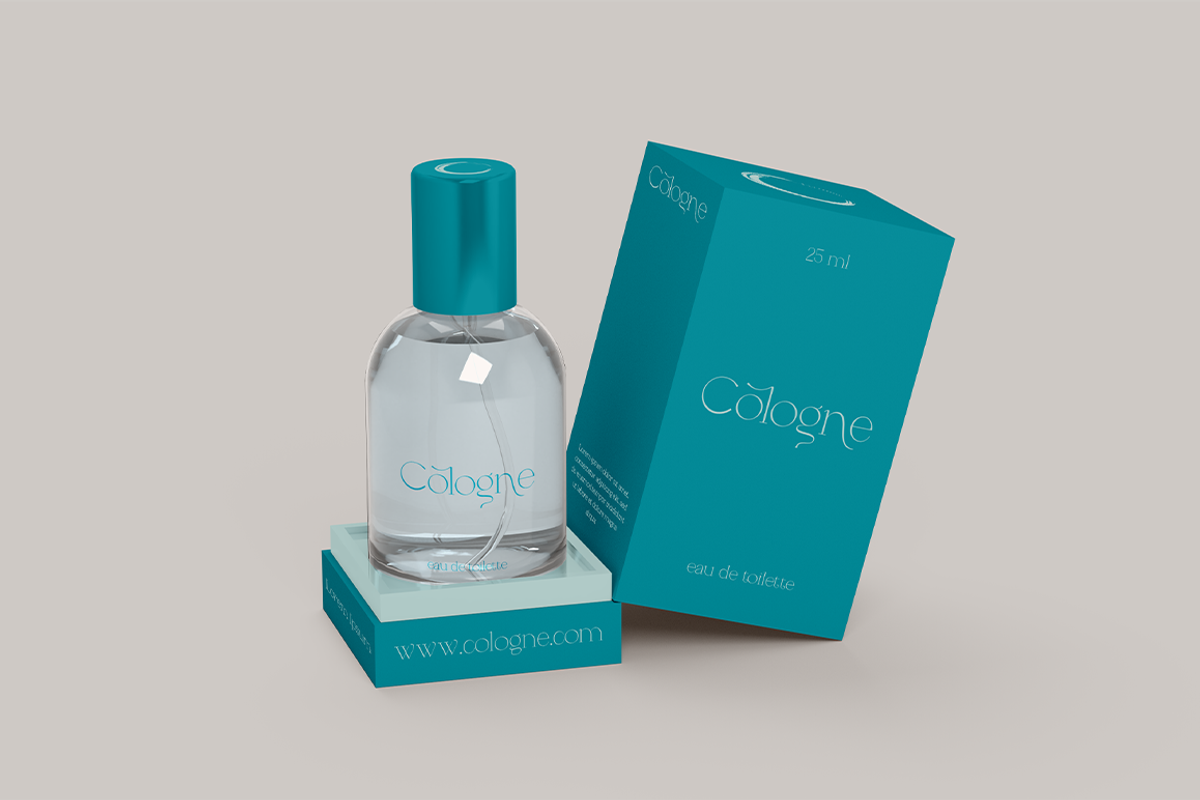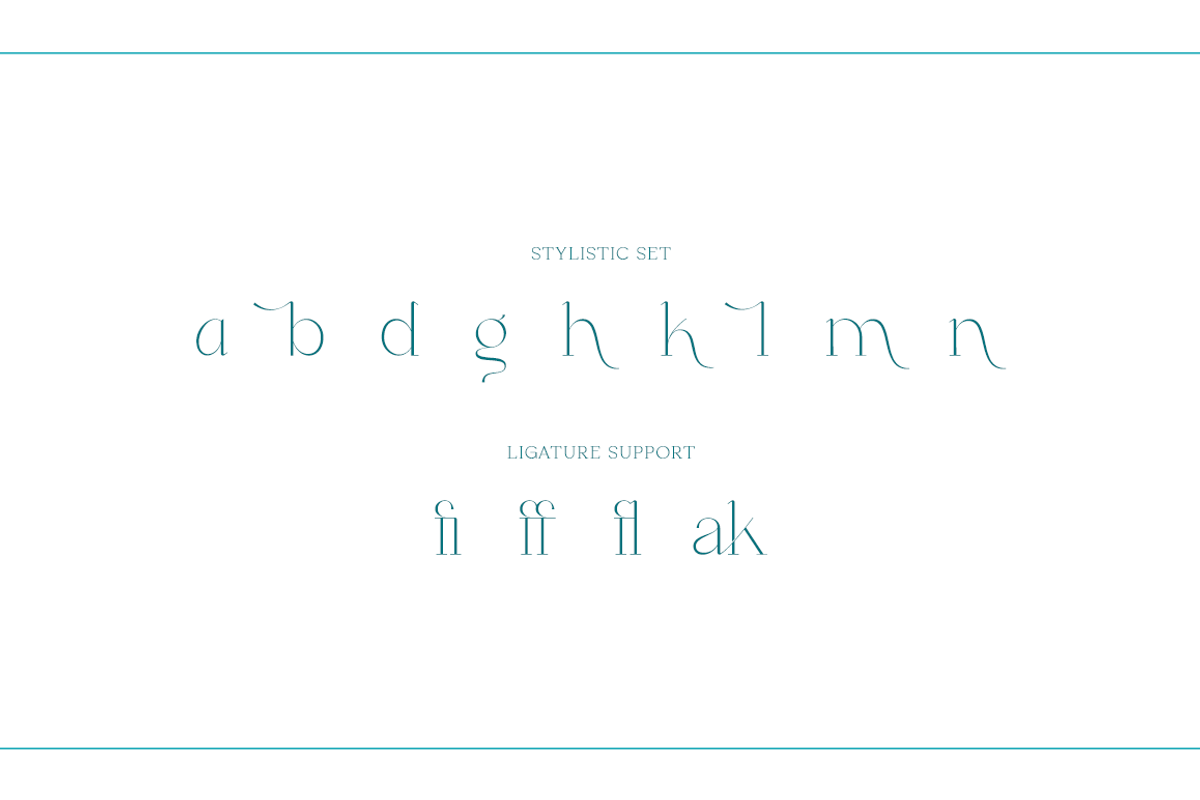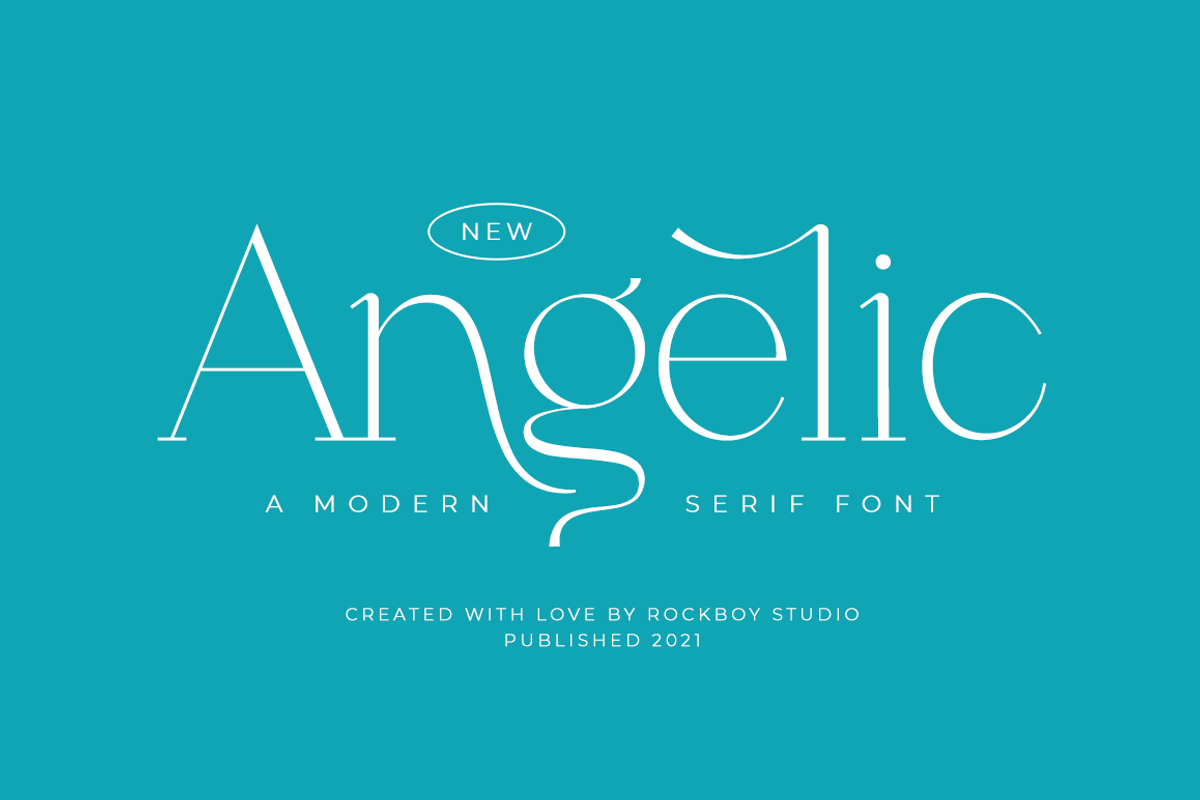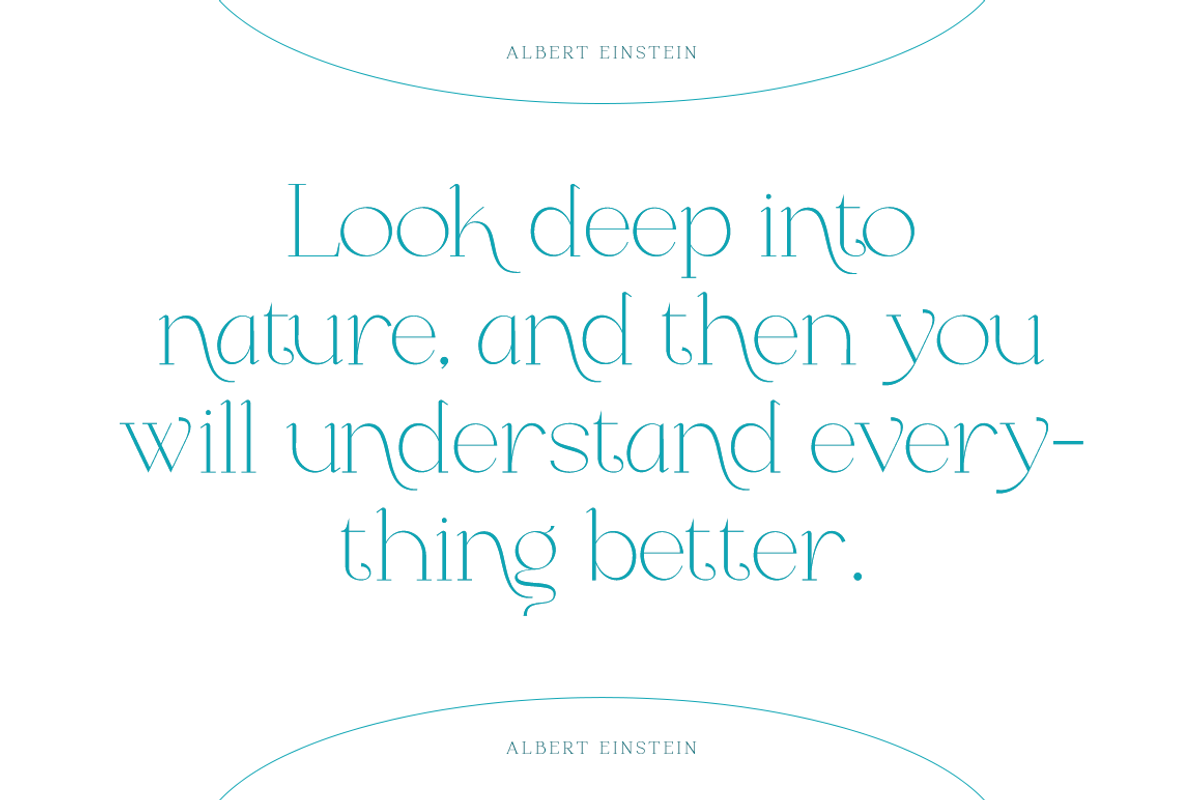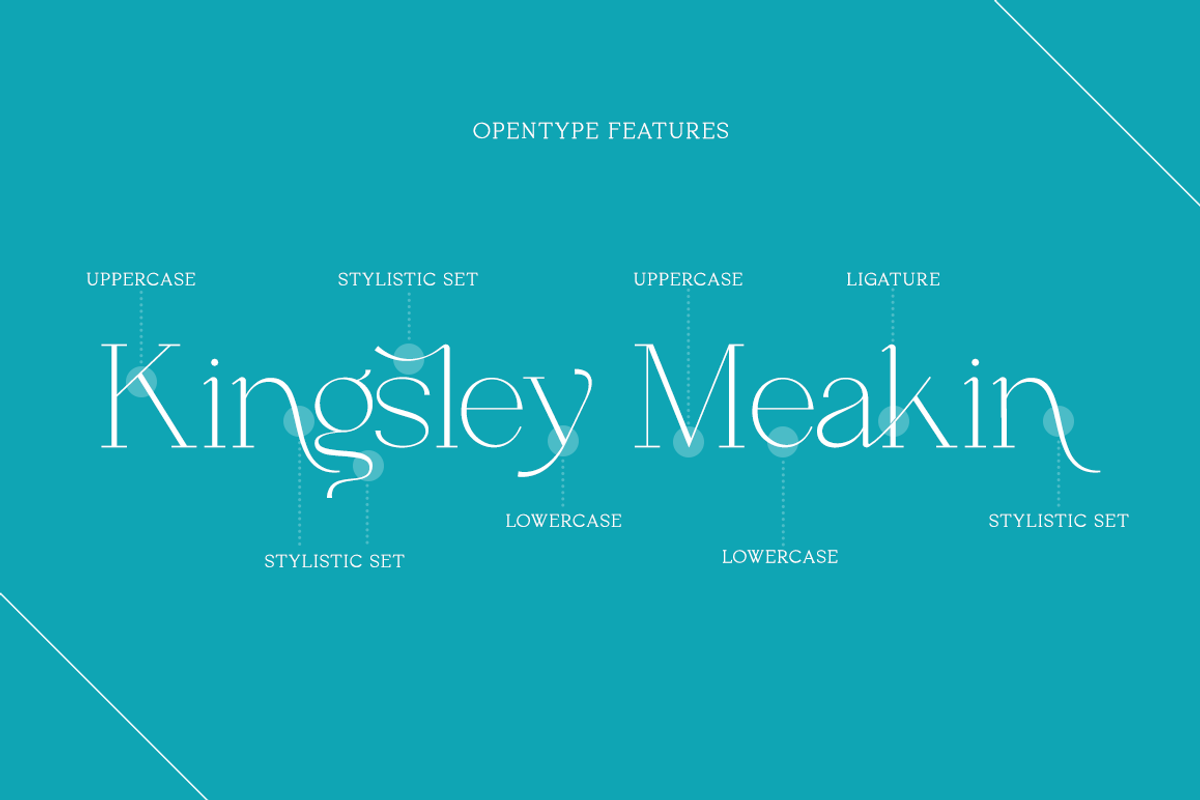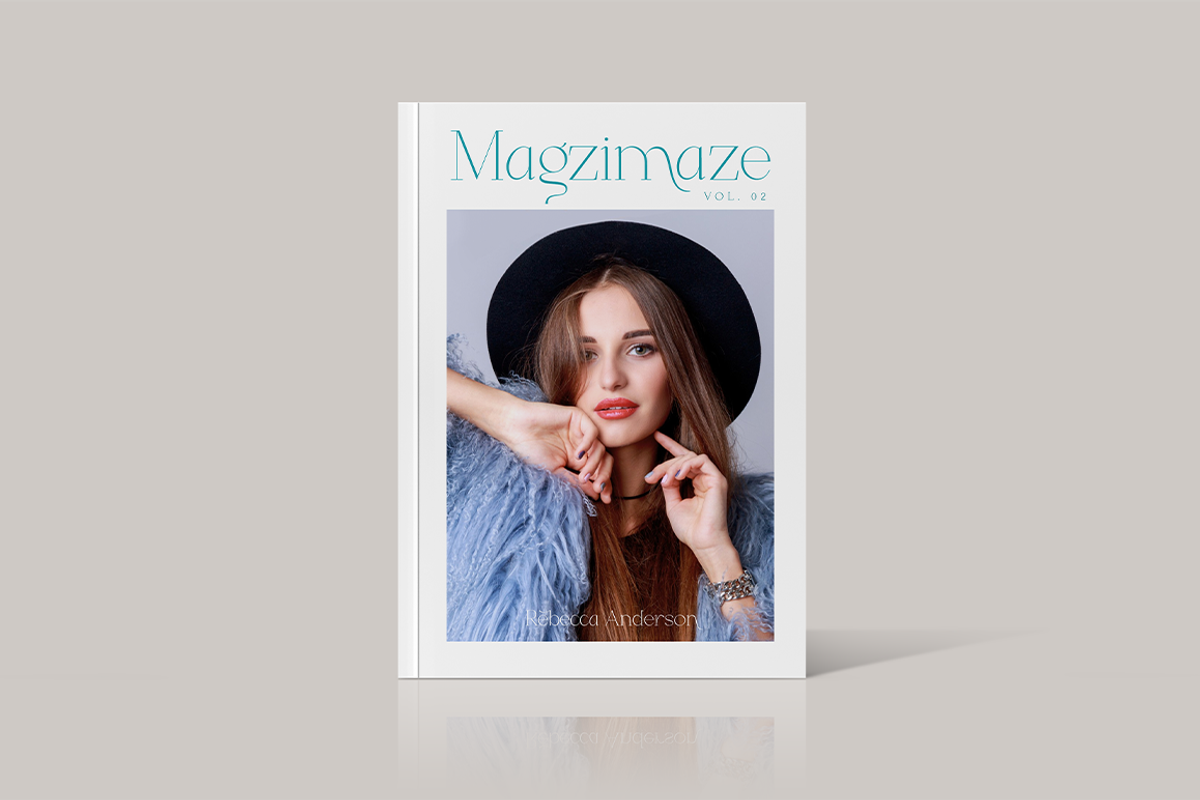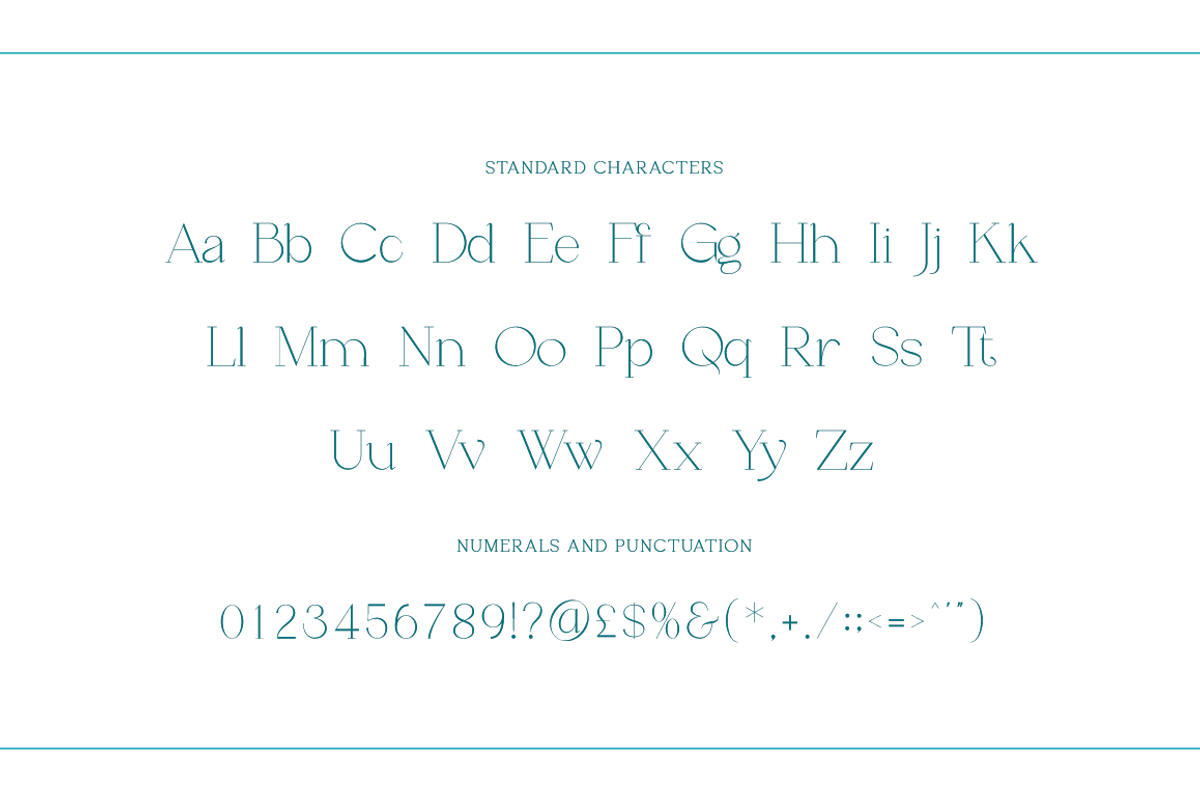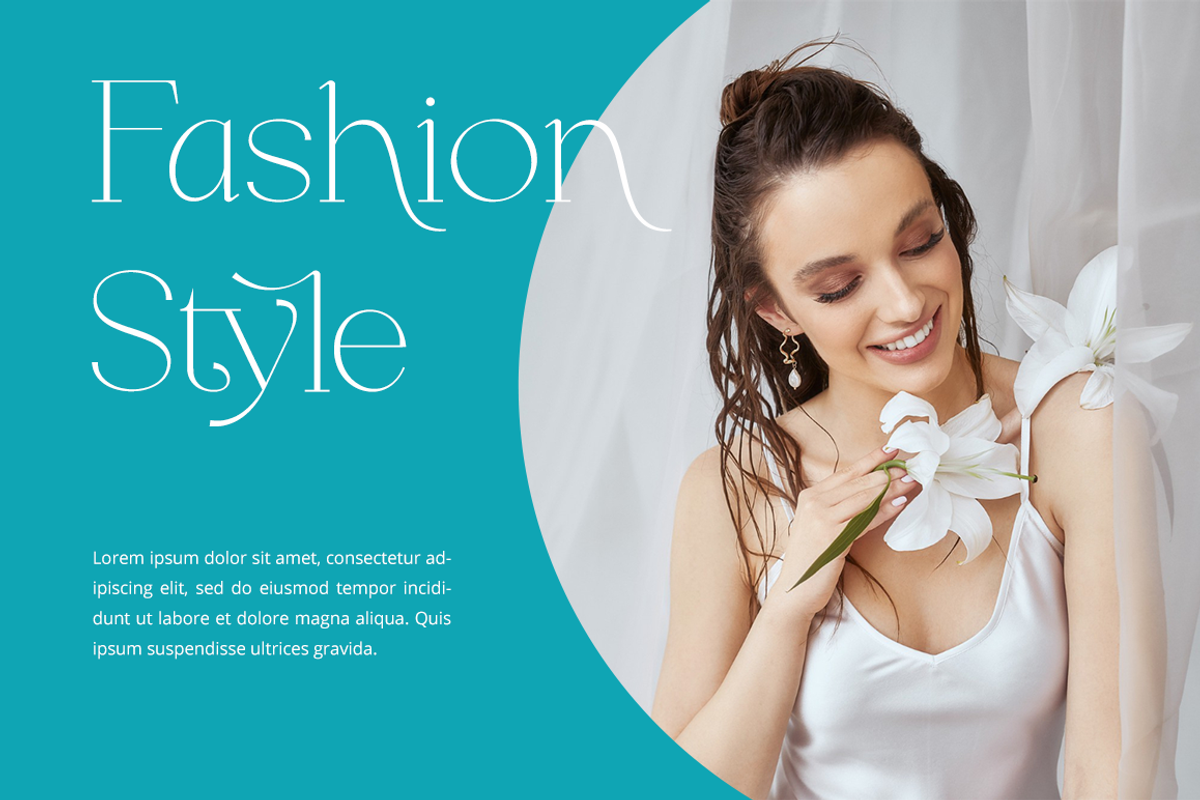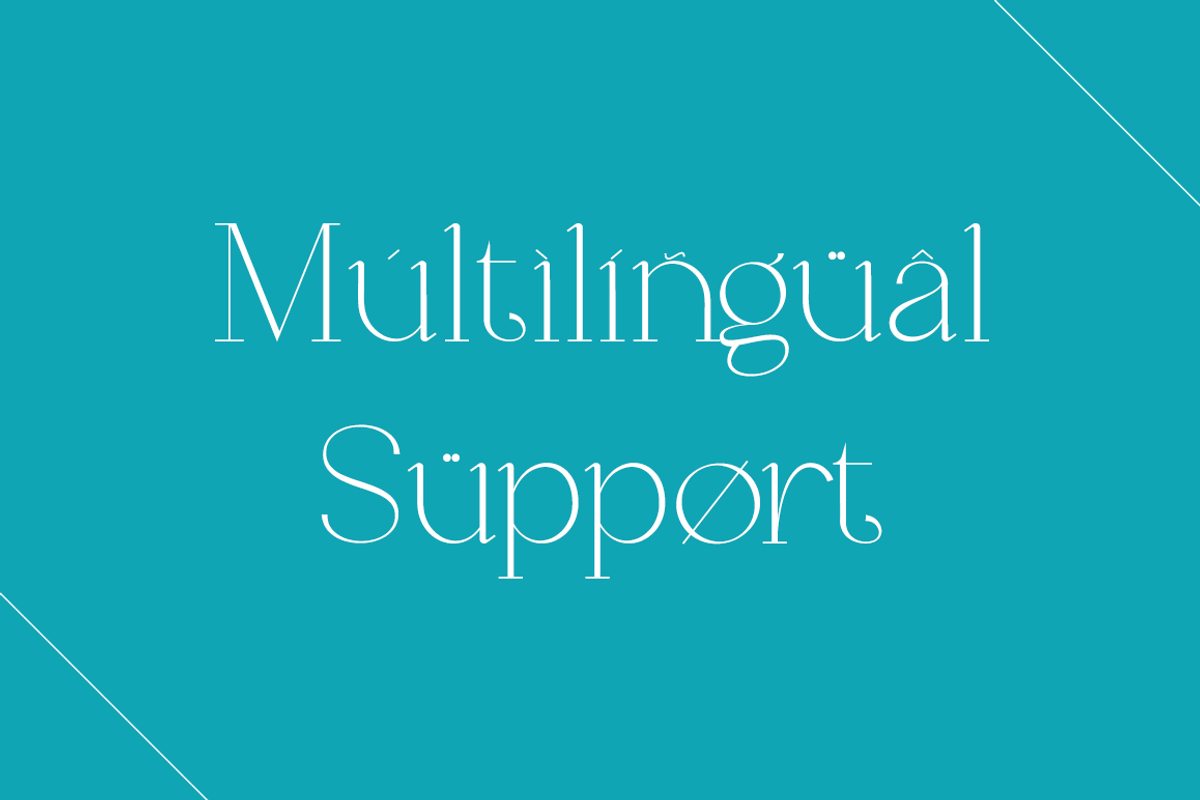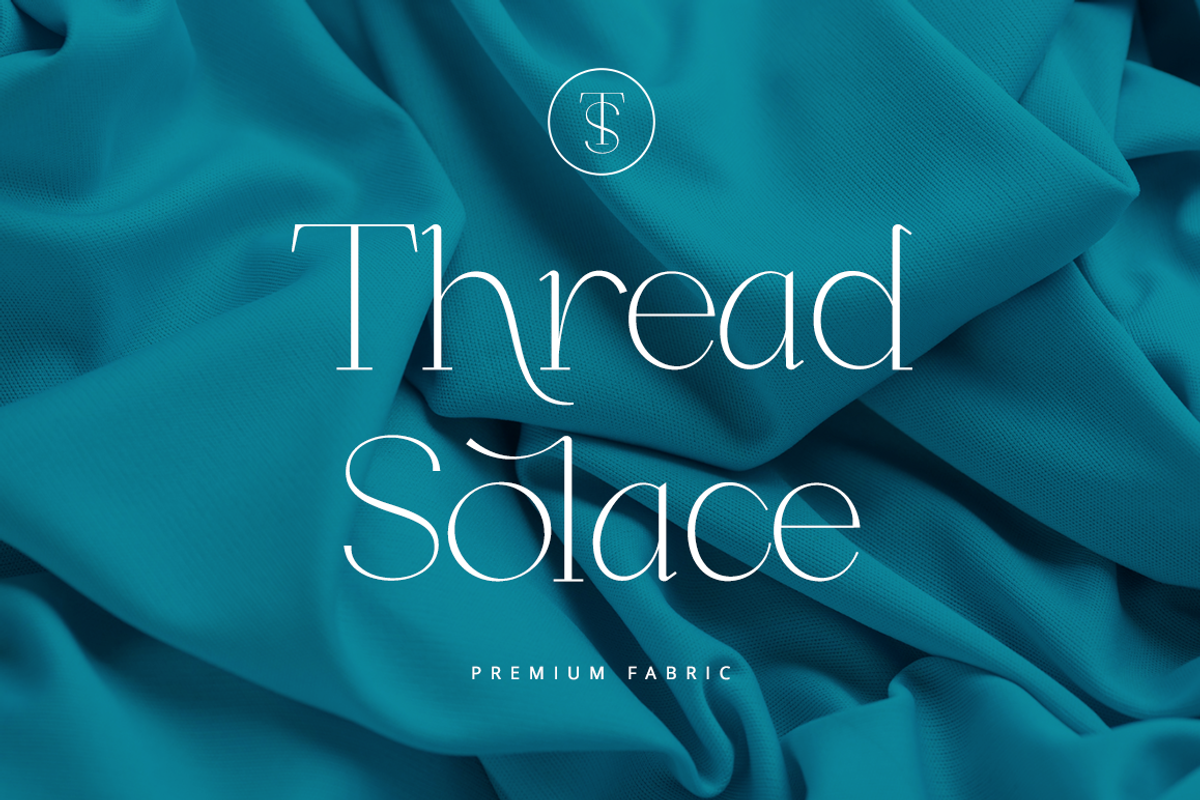
Angelic - Modern Stylish
Angelic is an elegant and authentic serif font. No matter the topic, it will be an incredible asset to your fonts’ library, as it has the potential to elevate any creation.